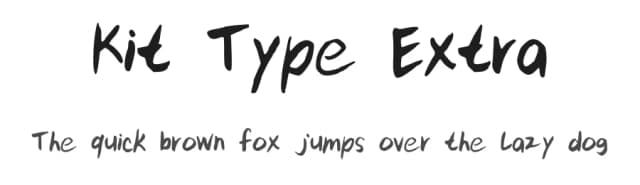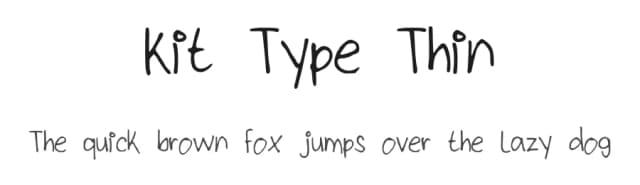
About Kit Type Font
Kit Type Font is a script font that shines as a display or heading face. Pair it with a clean sans-serif or serif font for body text β the contrast creates a clear hierarchy while the two styles stay balanced and easy to read.
Kit Type Font